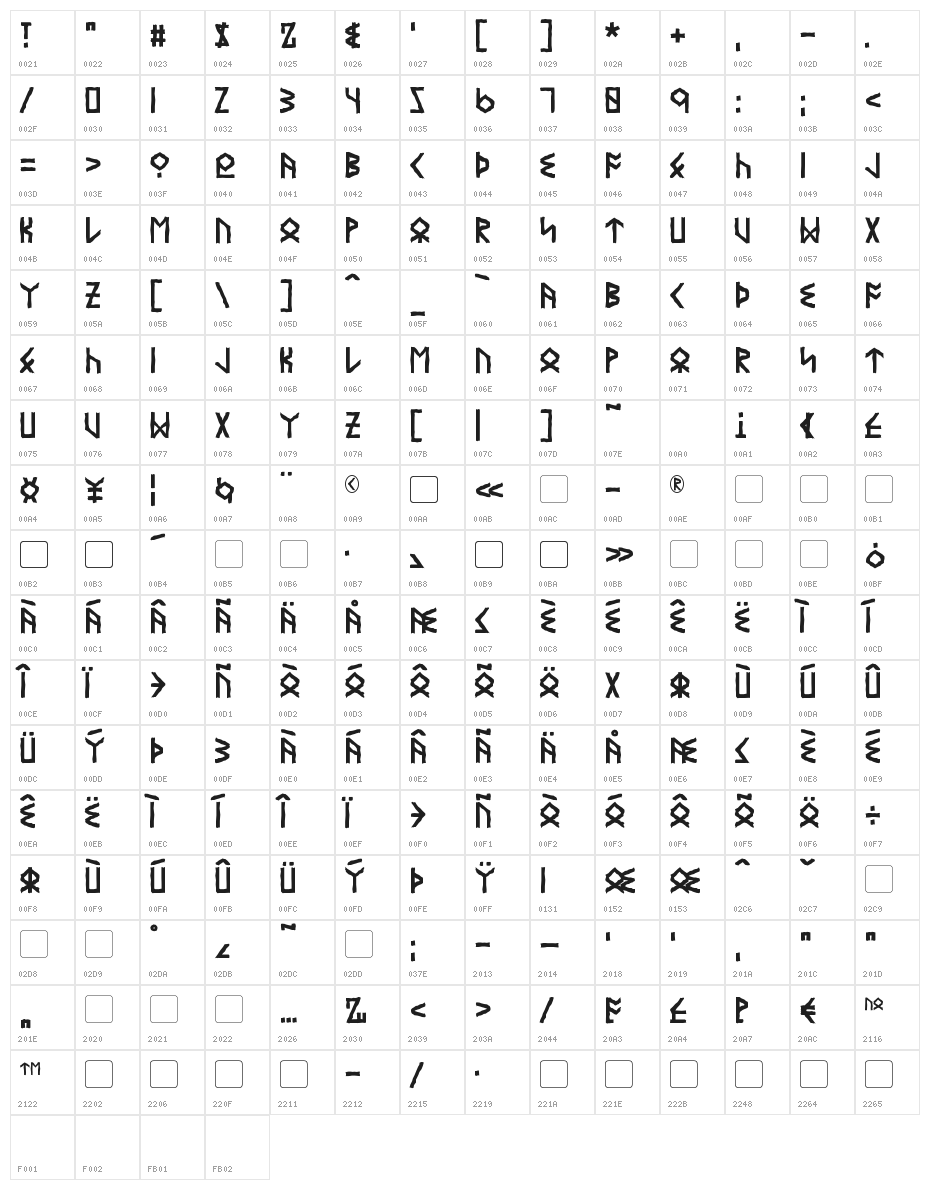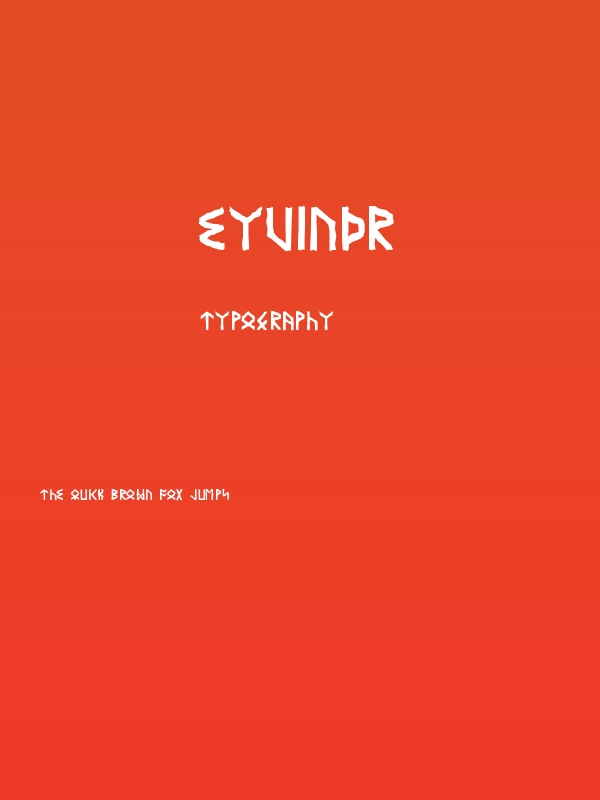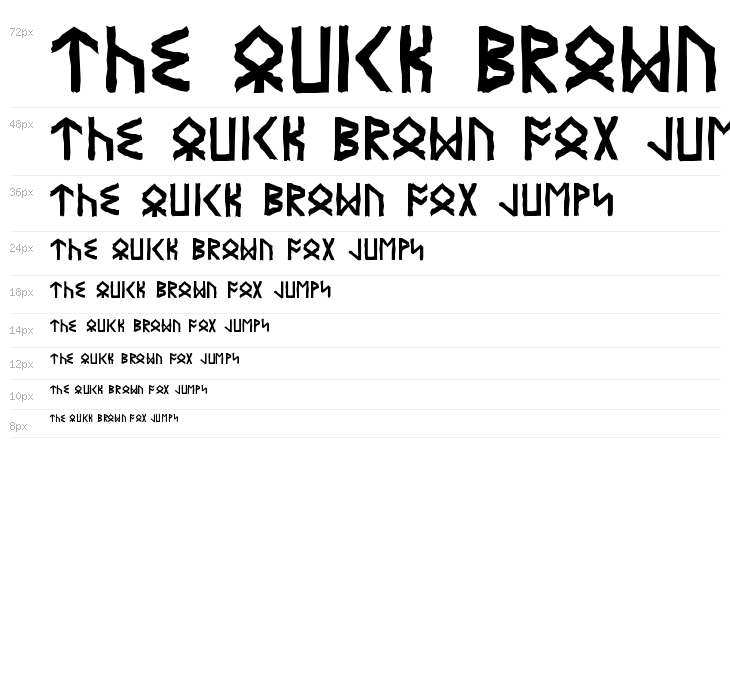
Eyvindr Font
Eyvindr Description
This font features a bold and angular design, reminiscent of ancient runic scripts. The characters are crafted with sharp edges and a rugged appearance, giving it a distinct, historical feel. The uppercase and lowercase letters maintain a consistent style, with each character exhibiting a unique geometric form. The numbers and special characters follow the same design principles, ensuring uniformity across the font. This font is perfect for projects that require a touch of antiquity or a connection to Norse or Viking themes. Its strong visual impact makes it suitable for headlines or decorative purposes.
| Use Case | Headlines, Logos, Decorative |
| Proposed Projects | Ideal for historical-themed posters, fantasy book covers, video game titles, or any project requiring a touch of ancient mystique. |